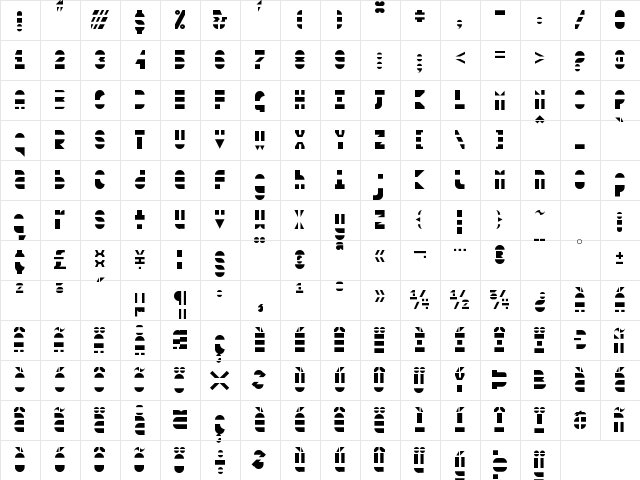
Blown Out Regular Font Preview
Blown Out Regular
Blown Out Regular Font Details
Design Context for Blown Out Typeface
Blown Out is a composed and adaptable typeface that performs quietly and consistently across a wide range of design contexts.